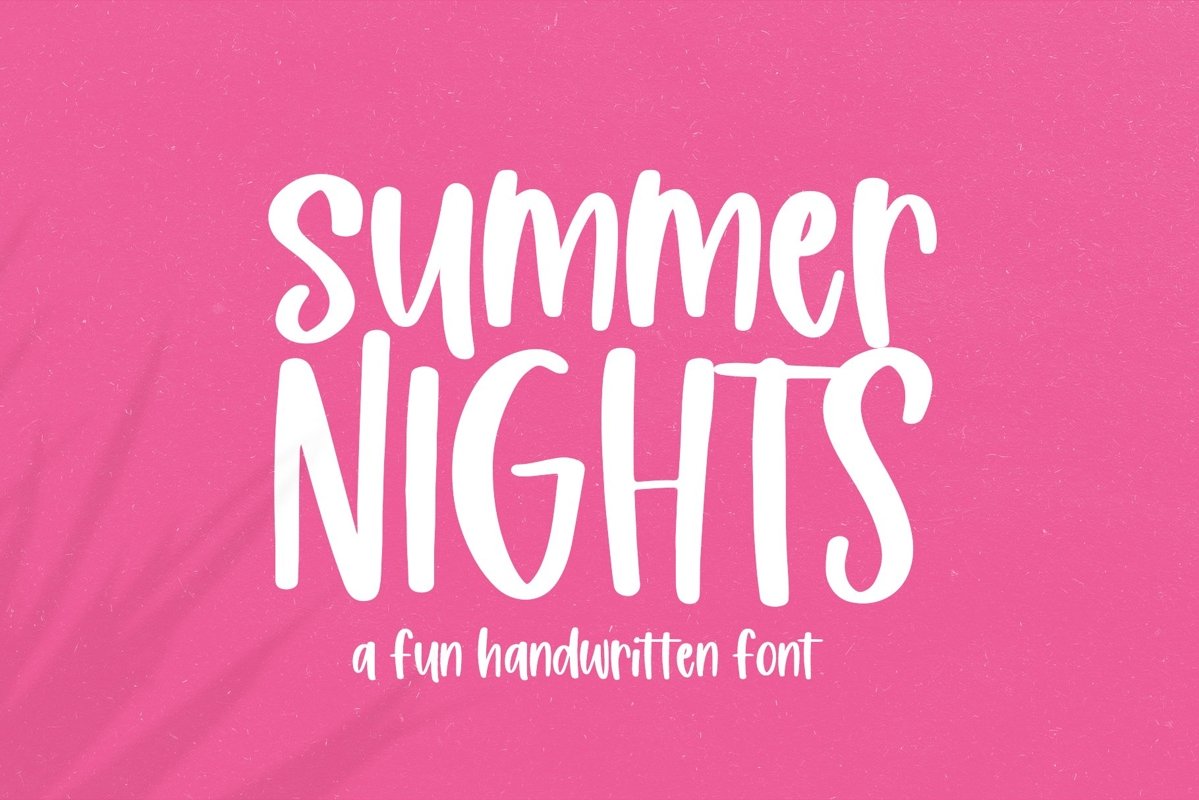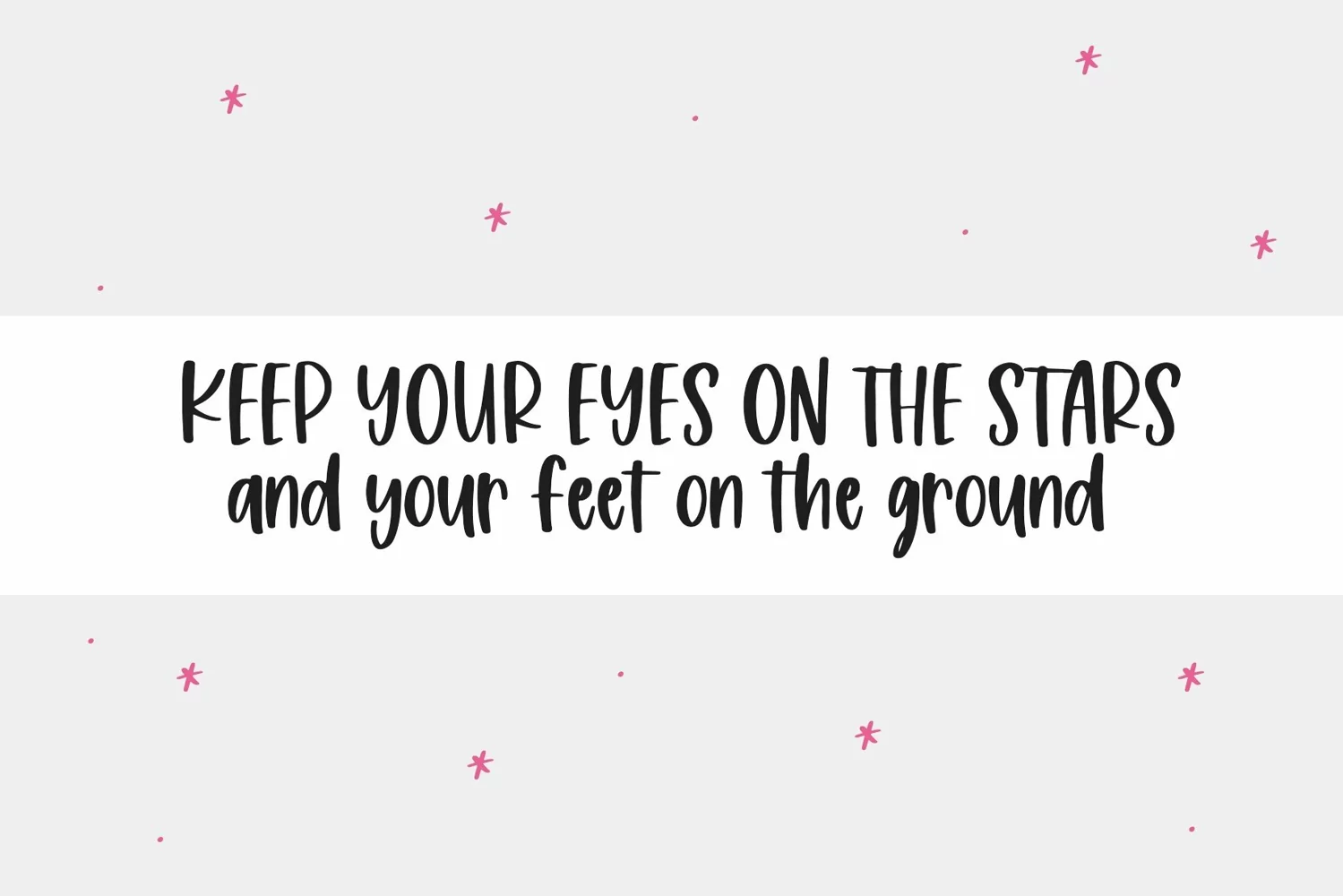
Summer Nights is a fun handwritten font!
This font is perfect for quotes, shirt designs, websites, branding, children's designs, svg designs, blogs, logos, invitations and more!